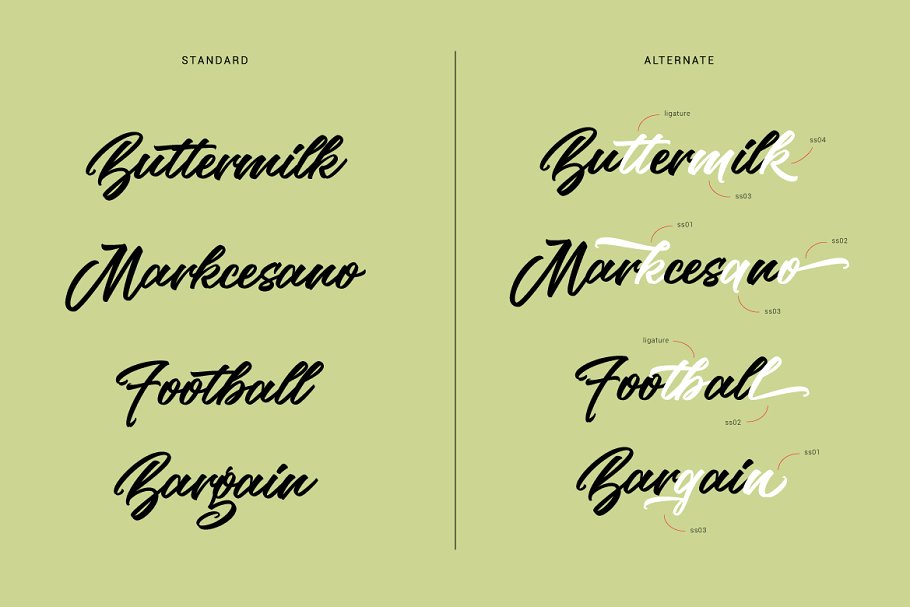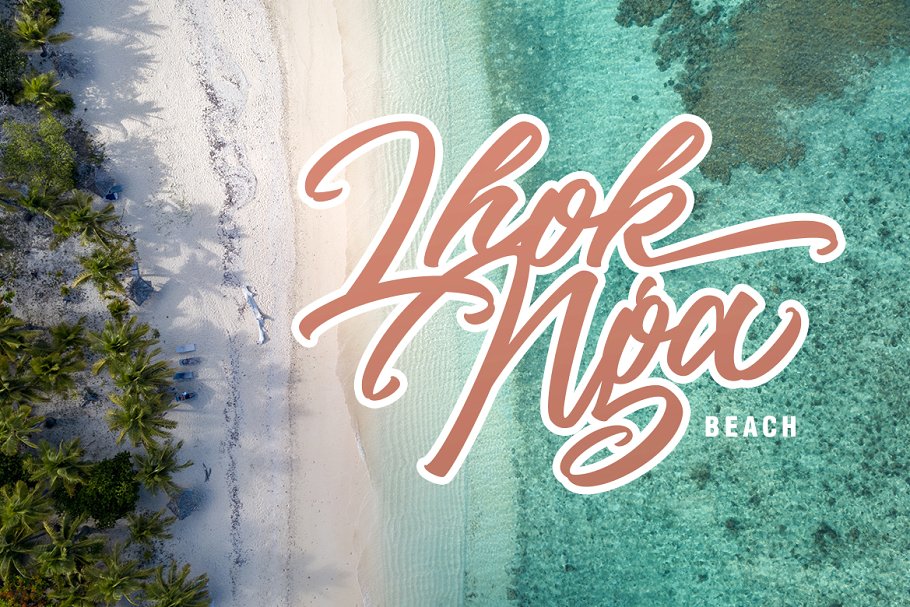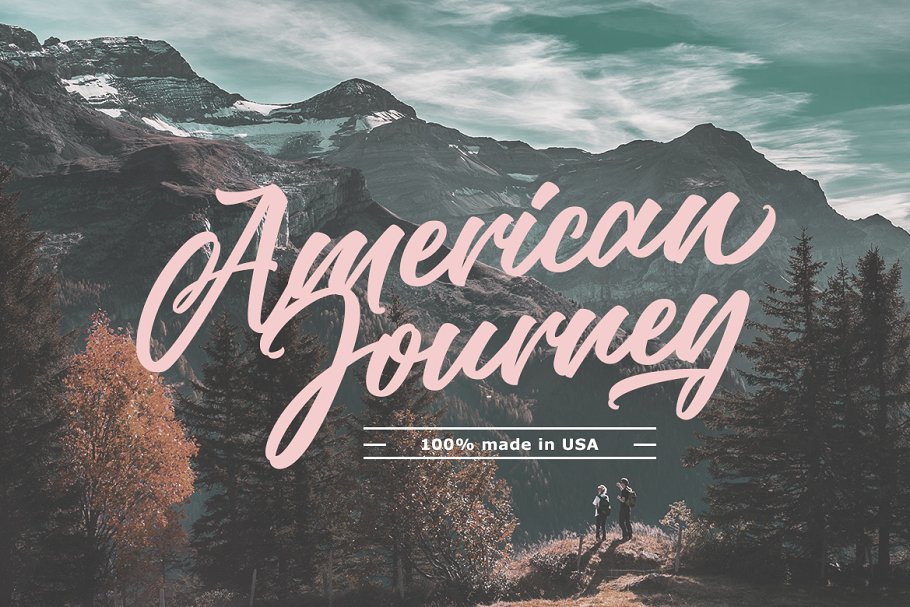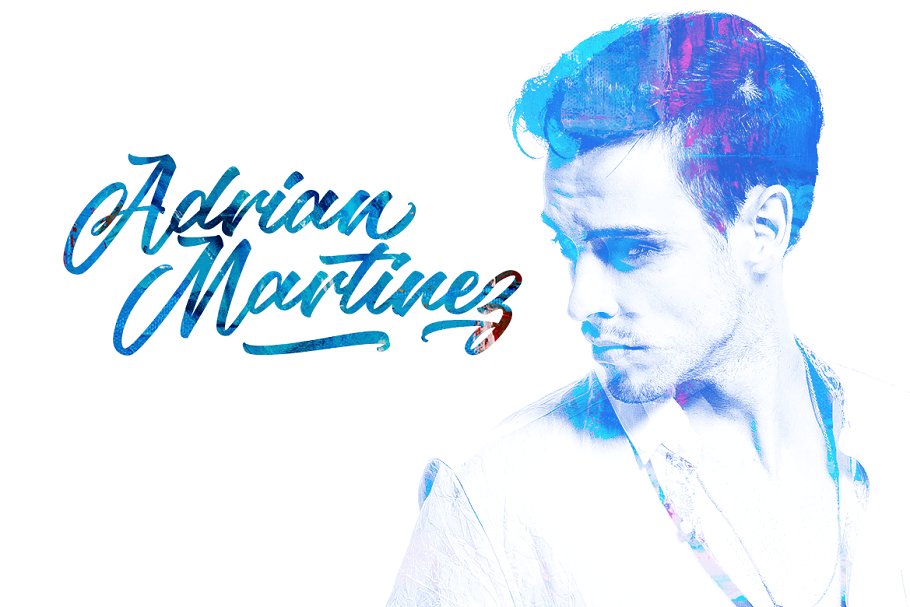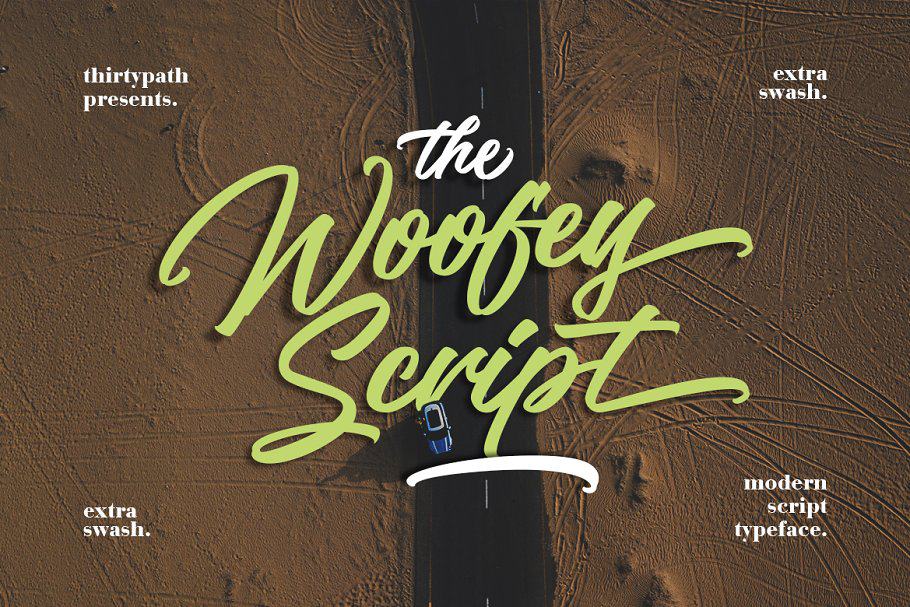
The Woofey Script Font
A new modern script typeface by thirtypath. Presenting The Woofey Font. The Woofey Font is handtype font, every single letters have been carefully crafted to make your text looks beautiful. With modern style this font will perfect for many different project ex: quotes, blog header, poster, wedding, branding, logo, fashion, apparel, letter, invitation, stationery, etc.